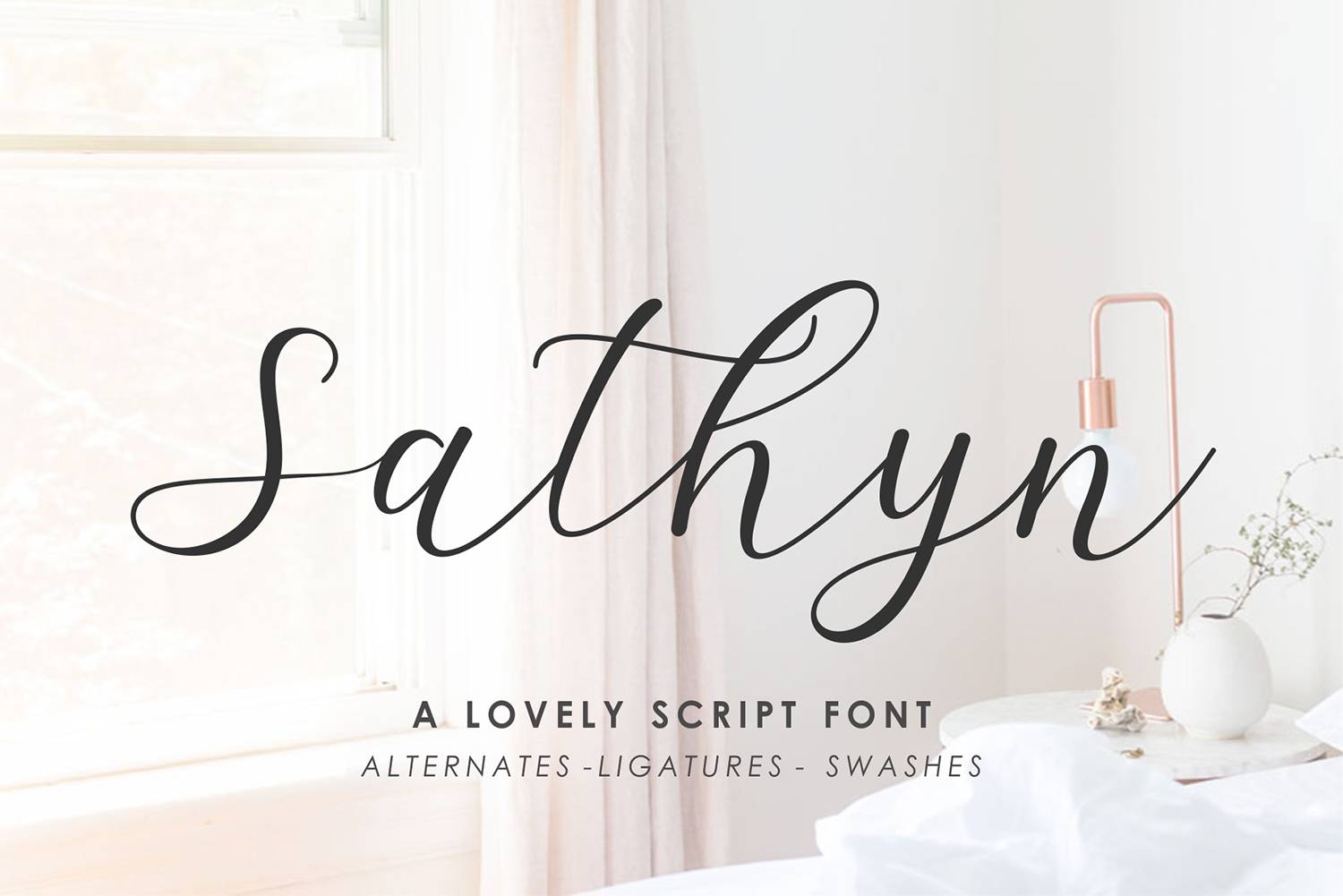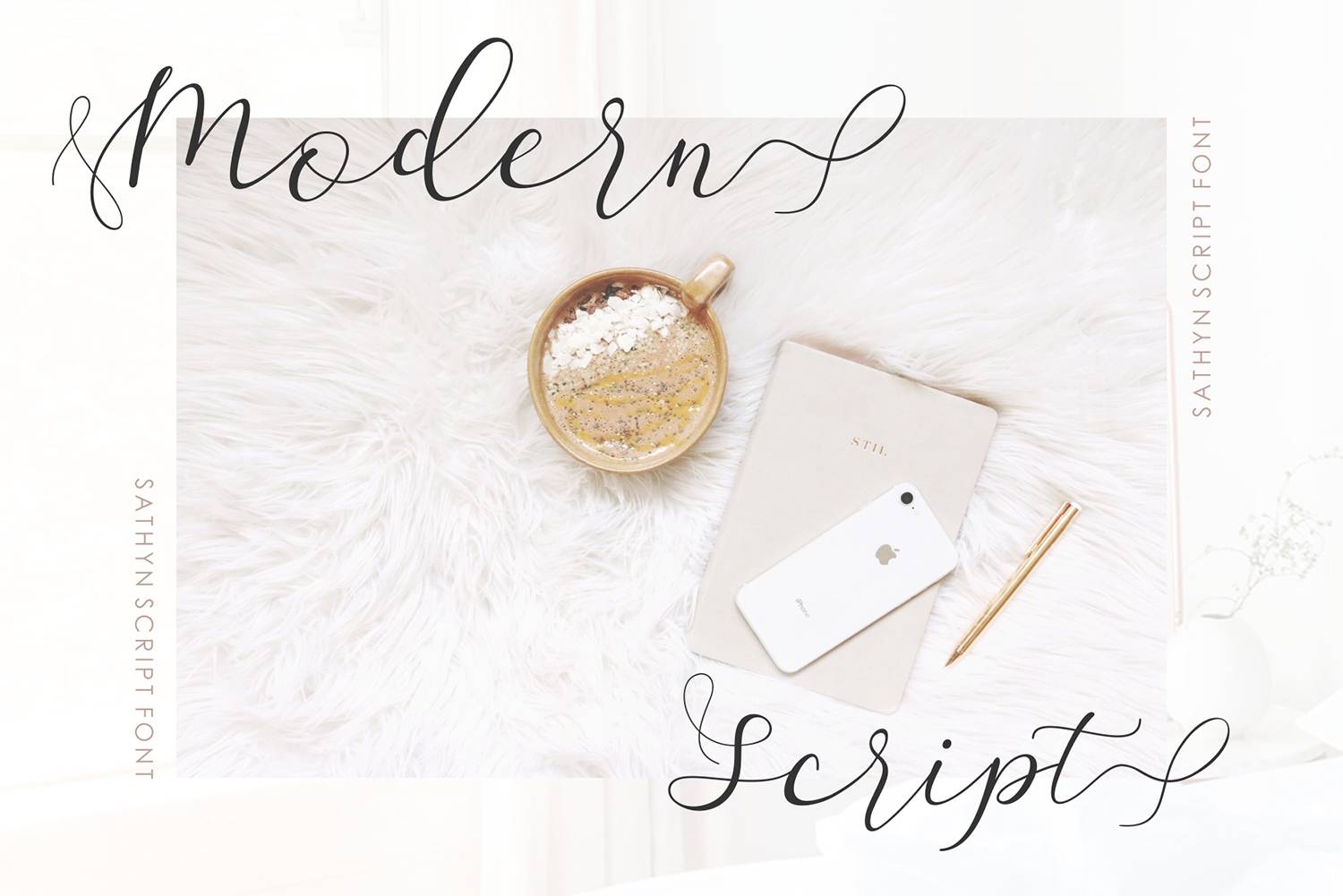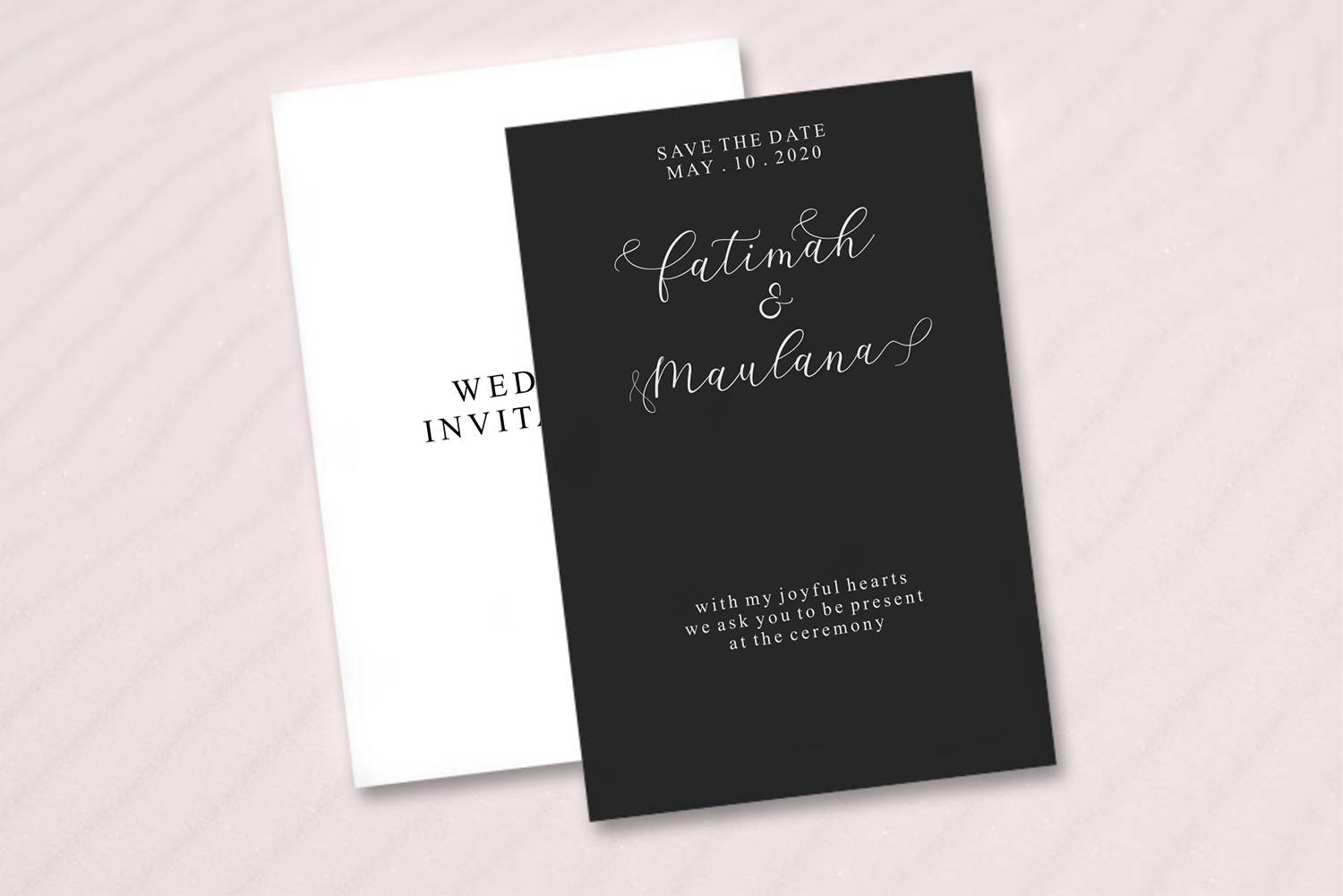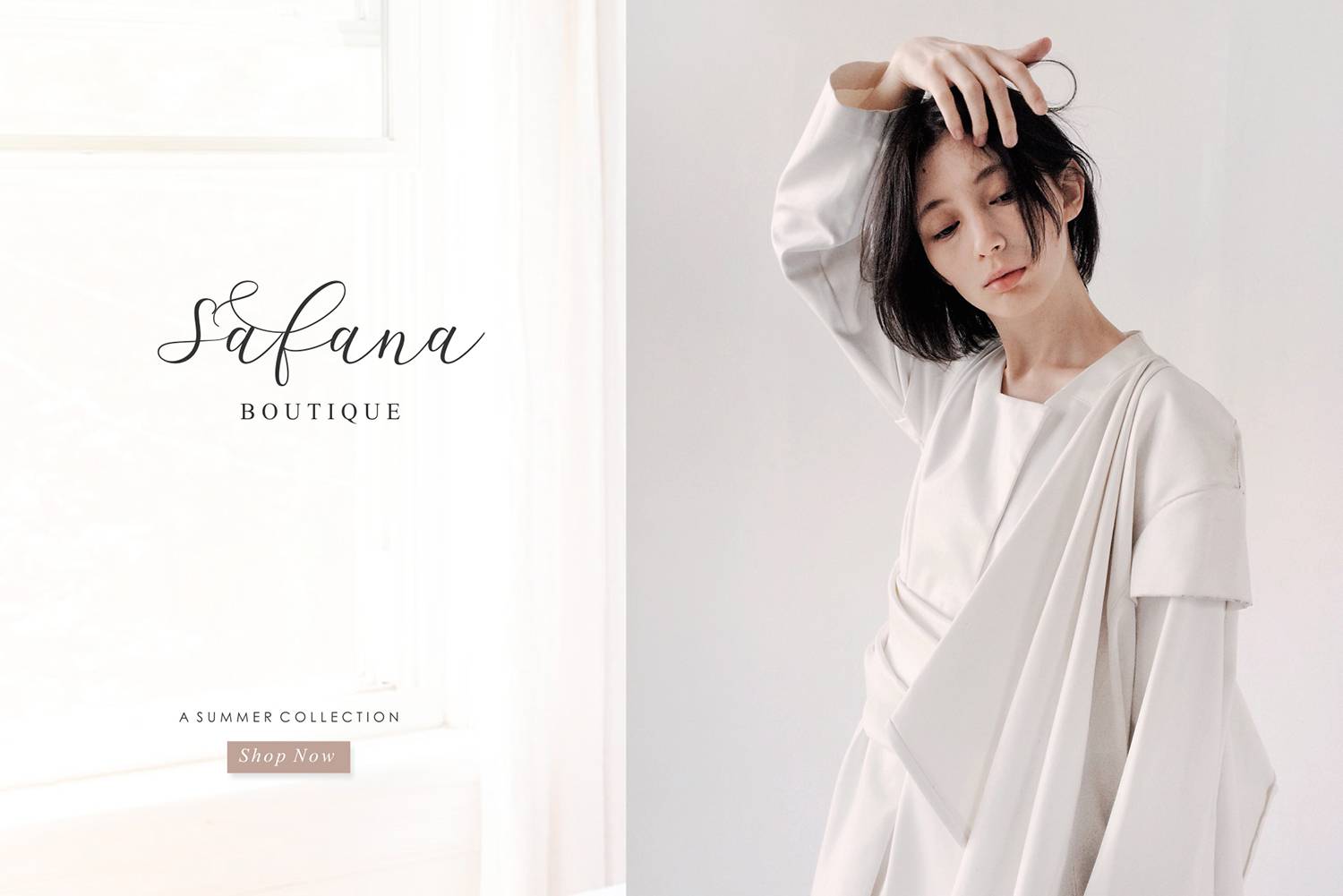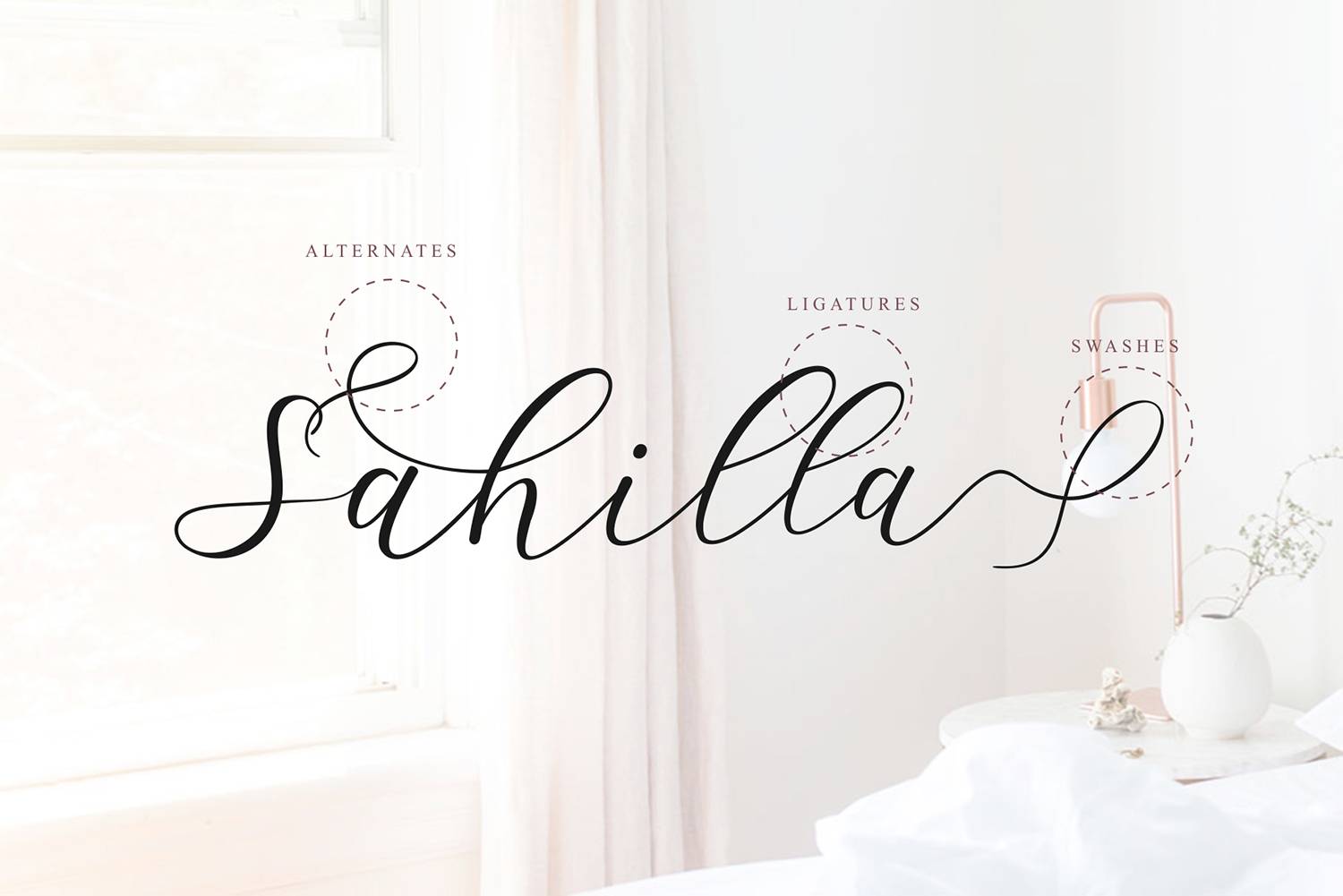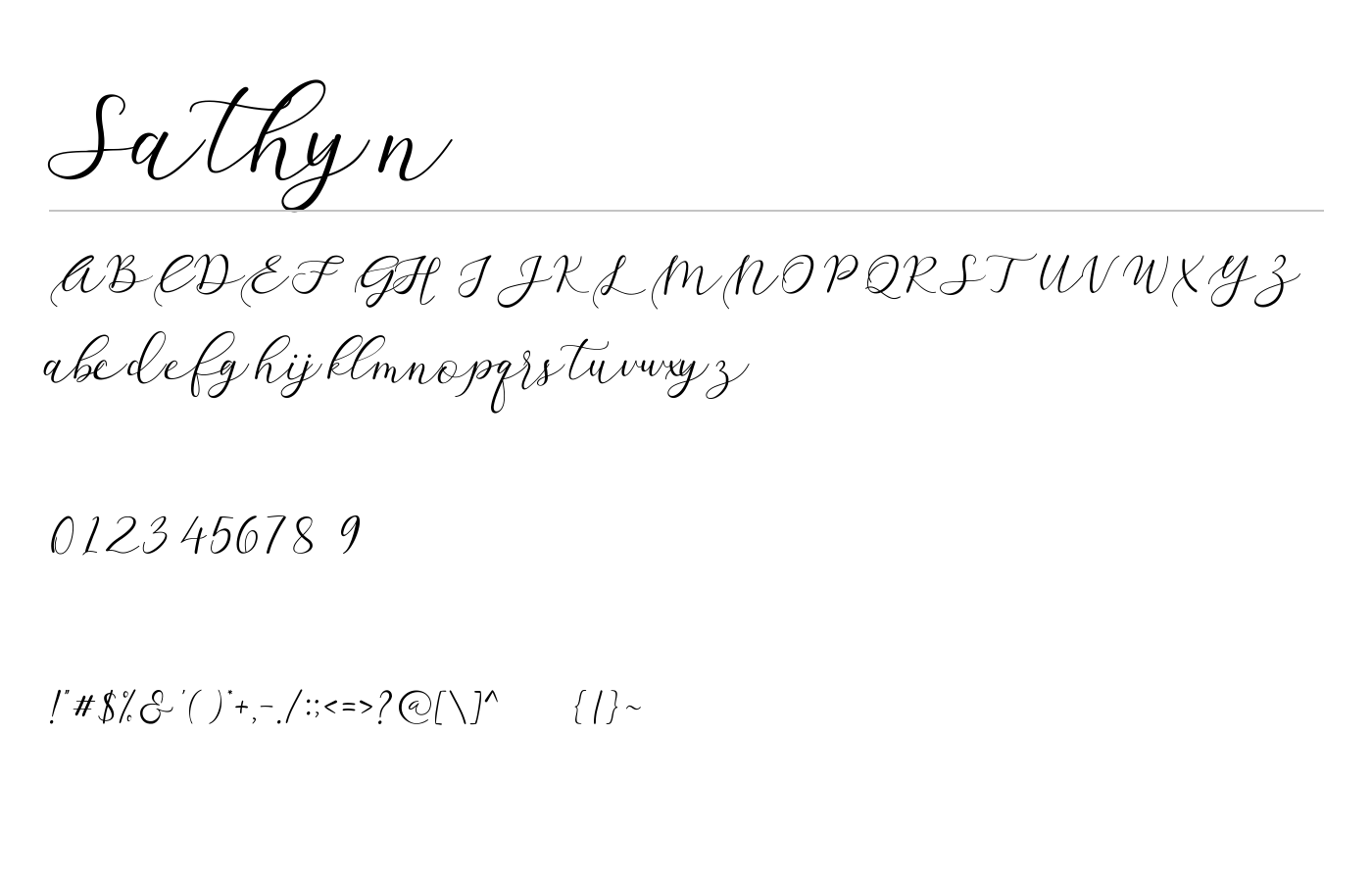
Sathyn is an elegant and delicate script font featuring slender, flowing strokes with a graceful, handwritten feel. Its fine lines and fluid connections create a sophisticated, feminine style perfect for wedding invitations, luxury branding, and other refined designs where a touch of elegance is desired. This font works best in decorative or headline contexts where its intricate, calligraphic charm can truly shine.
Sathyn Font
About Sathyn Font
| Font family | Sathyn Font |